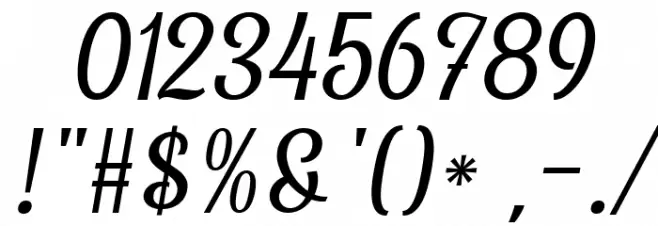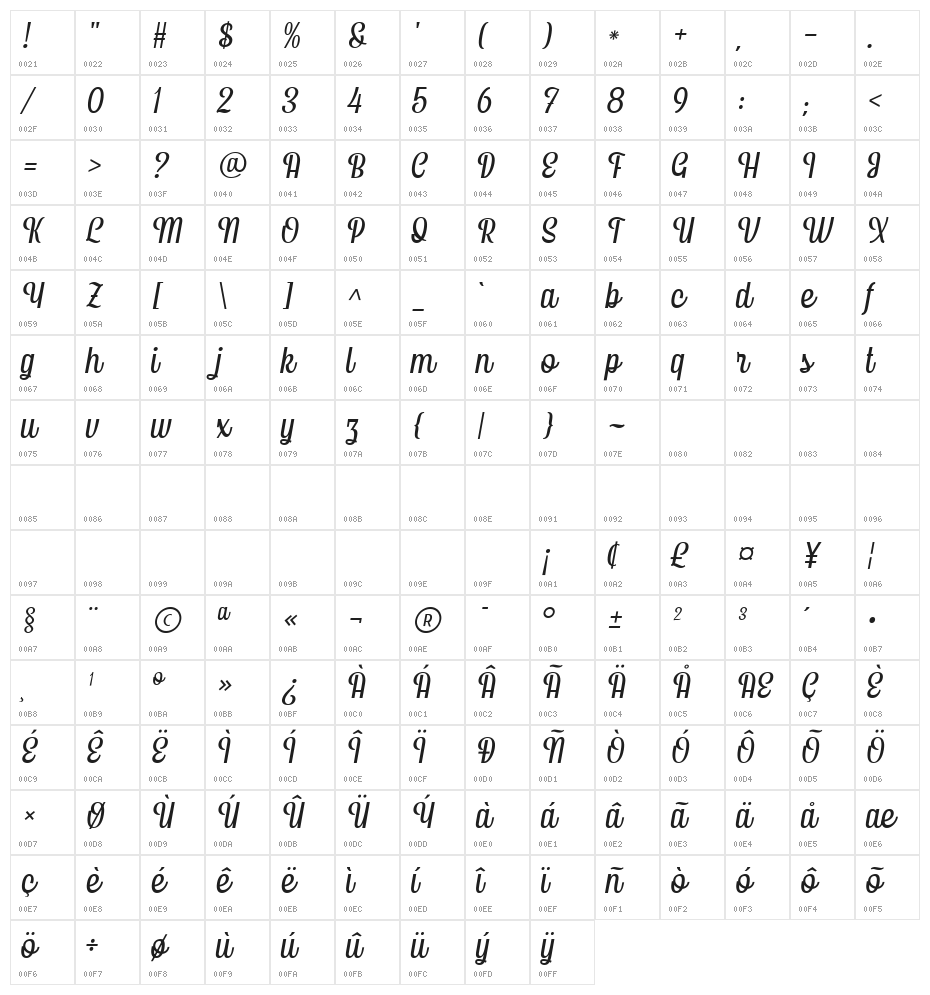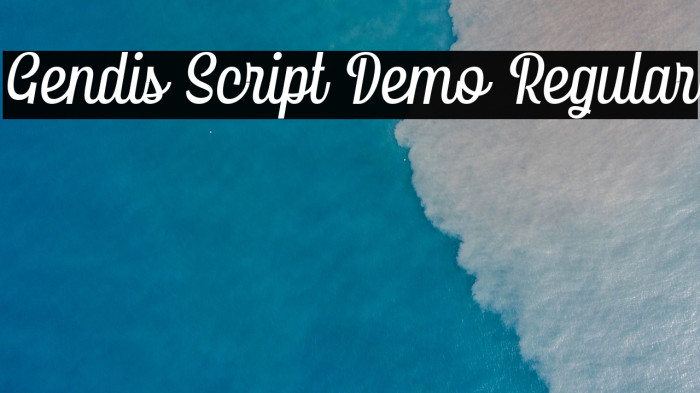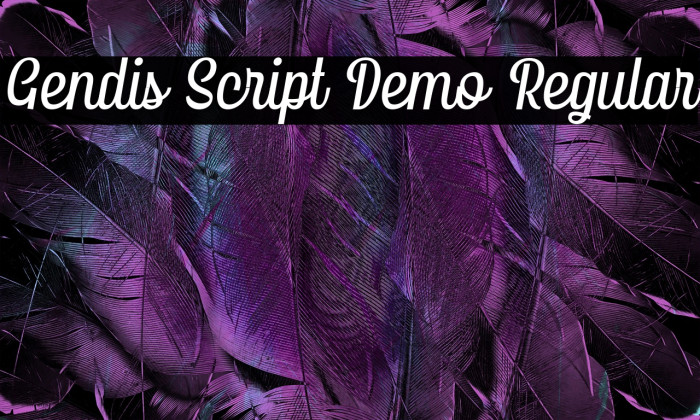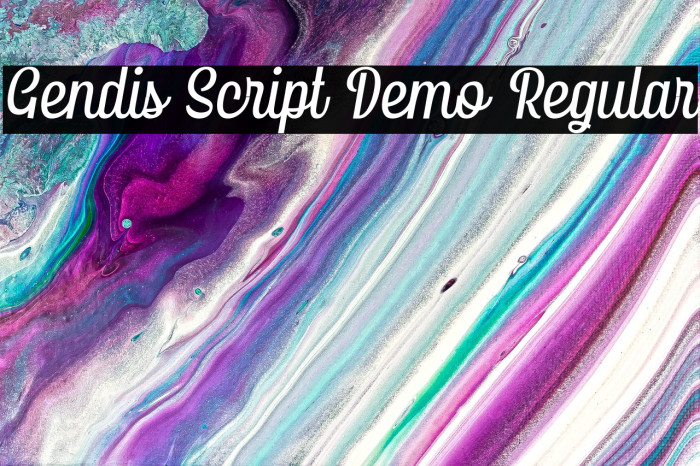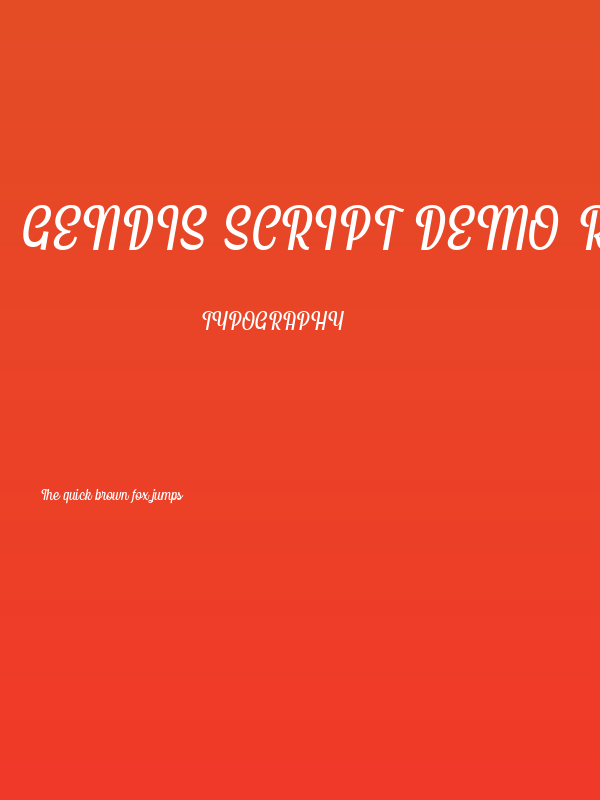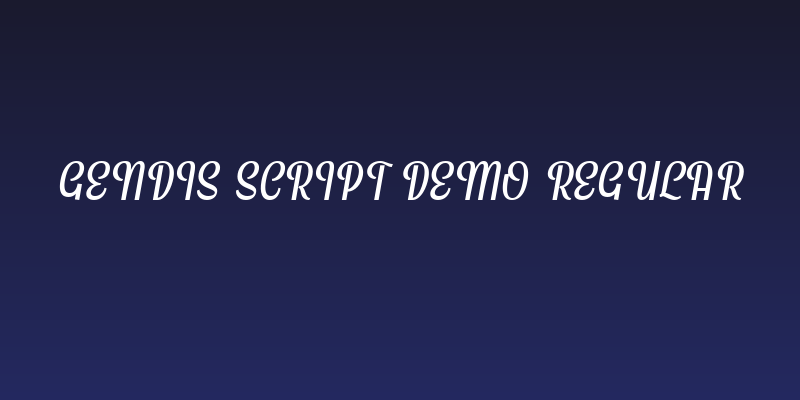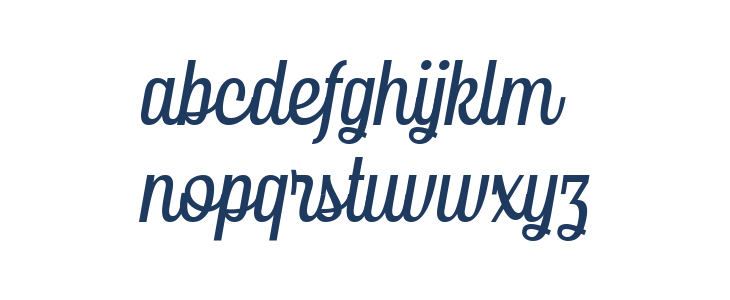
Gendis Script Demo Regular Font
Gendis Script Demo Regular Description
This font features a flowing, cursive style with elegant curves and a smooth, continuous stroke. The uppercase letters are bold and slightly slanted, giving a dynamic and lively appearance. The lowercase letters maintain a consistent flow, with some characters featuring distinctive loops and swashes that enhance its decorative nature. The numerals are well-integrated into the script style, maintaining the same fluidity and elegance. Special characters are designed to complement the overall aesthetic, ensuring a cohesive look across all text elements.
| Proposed Projects | Ideal for wedding invitations, greeting cards, branding projects, and elegant packaging designs. |